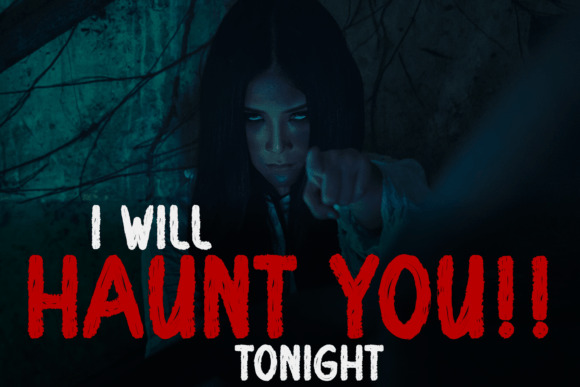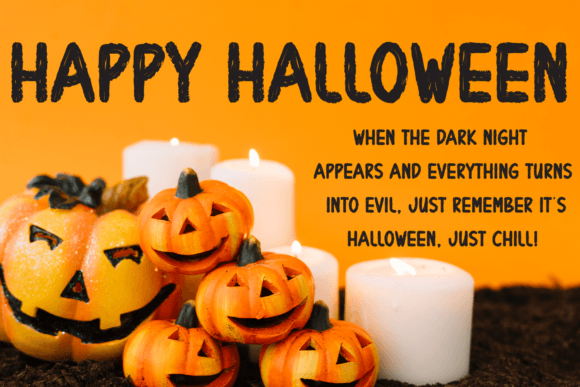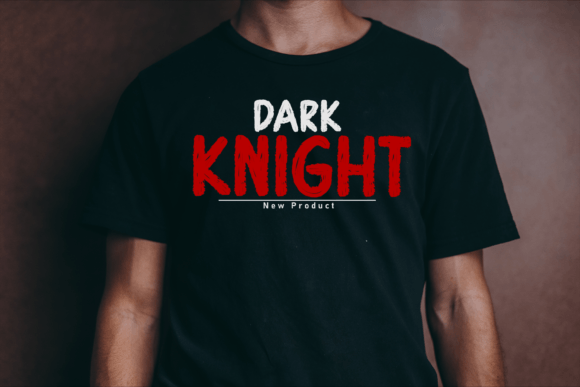
Introduction to Death Fire Font
Death FIre is an incredibly unique display font.
Masterfully designed to become a true favorite, this font has the potential to bring each of your creative ideas to the highest level .
Why Choose Death Fire Font?
Death Fire Font offers exceptional quality and versatility, making it a valuable addition to your design toolkit. Whether you’re creating for personal projects or commercial use, Death Fire Font delivers professional results.